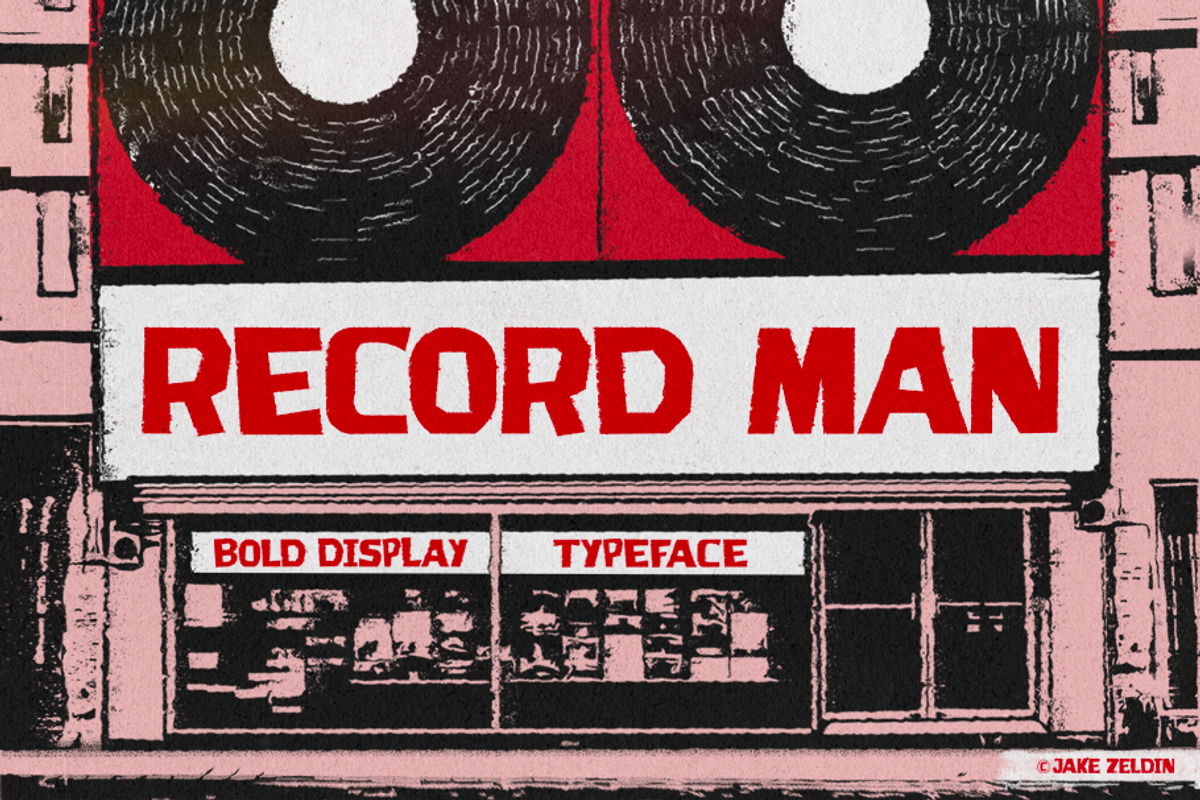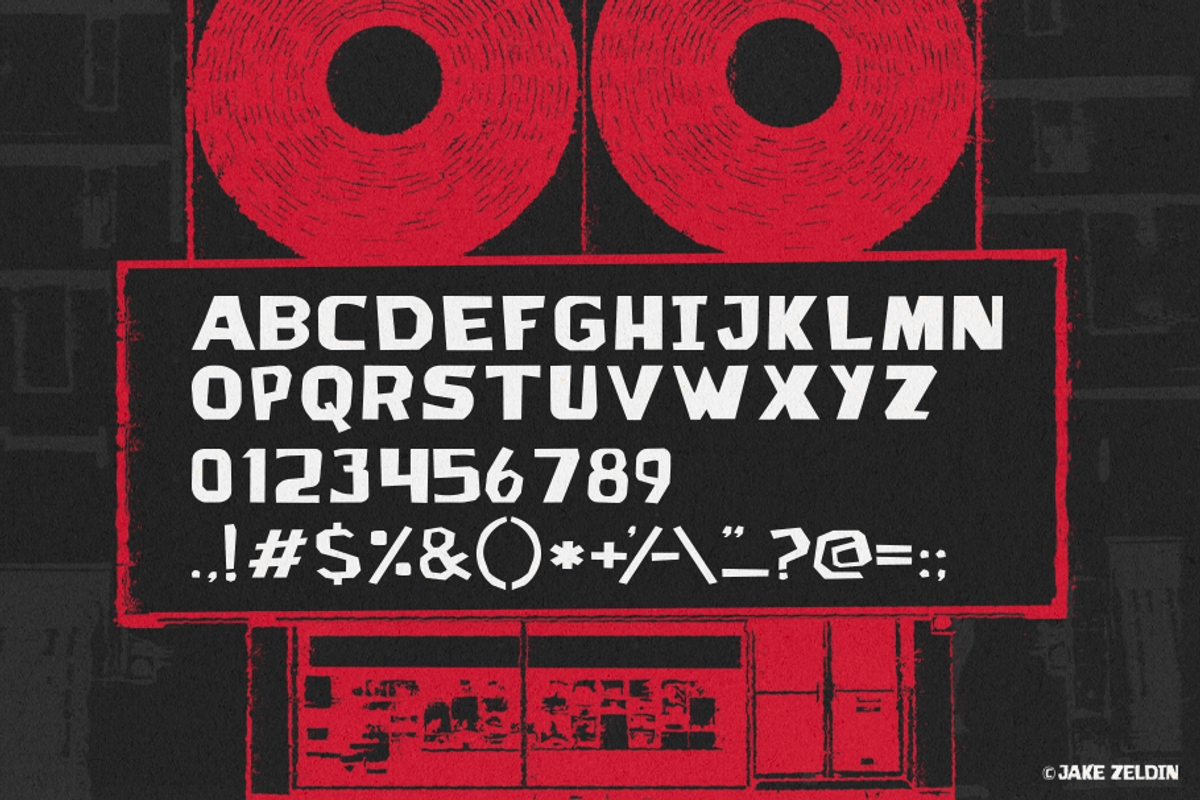
Record Man - Bold Display Typeface
Record Man is a blocky style bold display font with attitude. Bold, heavy and fun! All at the same time! Use Haring to make your designs stand out and look fresh! Based on the iconic signage from Sam the Record Man, a Canadian record store chain that, at one time, was Canada's largest music recording retailer. Add this font to your favourite creative ideas and notice how it makes them come alive!